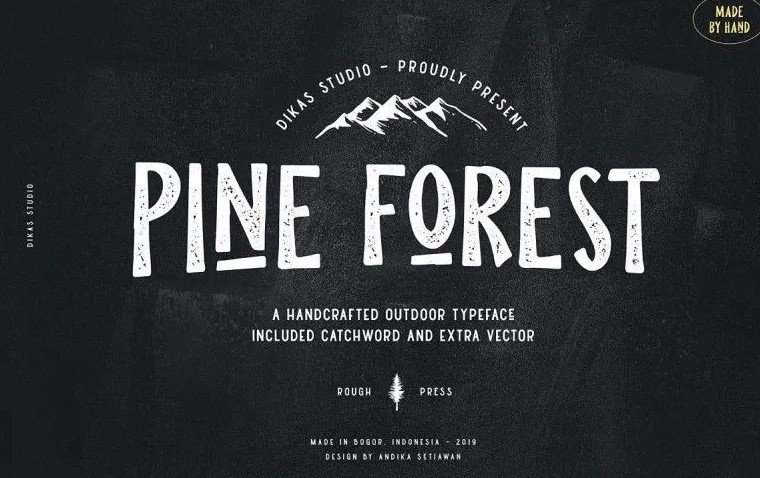
Pine Forest Font, as the name implies, features a beautifully handcrafted typeface that is ideal for outdoor projects. It has a vintage and elegant feel which will make any intricate project simple and efficient.
The awesome typeface that can be used with asterism font contains awesome features and different unique styles like bold, regular, heavy, and normal. You can take a view of the picture that we attached below to get an idea about the sample for this popular font.
It contains large number of playful characters and having an awesome sans seirf look. It will give you all the things that you want to be while making a great project for your client and for personal projects.
View Of Pine Forest Font
| Designer | Dikas studio |
What Type of Font Is Pine Forest?
The Pine Forest Font is the famous and amazing typeface which was product of Dikas studio.